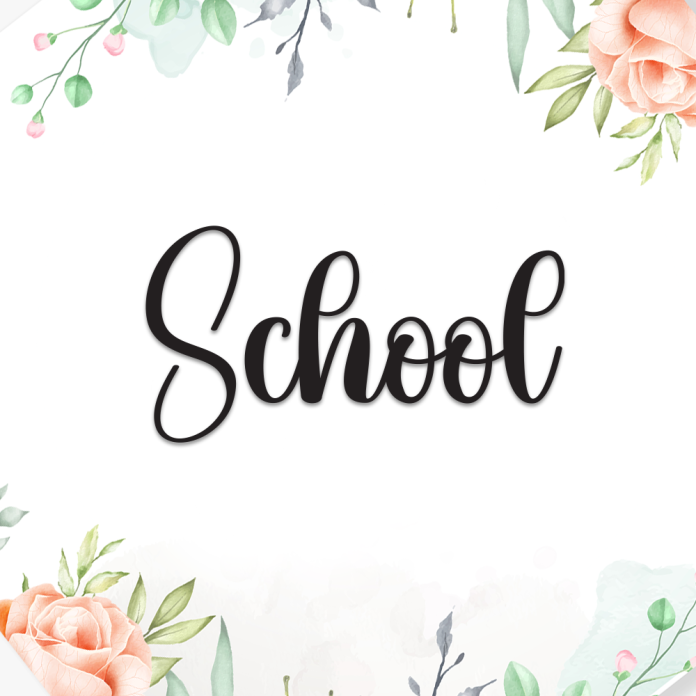
School is a clean and cheerful handwriting font that brings back the nostalgic charm of classroom notes and chalkboard writing. With its neat strokes and friendly character, this font is perfect for educational themes, children’s projects, and casual designs.
Ideal for school worksheets, classroom posters, educational apps, kids’ books, and teacher resources, School offers a clear and approachable handwritten look that feels both fun and familiar.
Simple and readable handwritten style
Friendly and playful letterforms
Great for education, kids’ content, school branding, and casual notes
Bring a sense of learning and fun to your work with School, the handwriting font that’s made for the classroom and beyond.